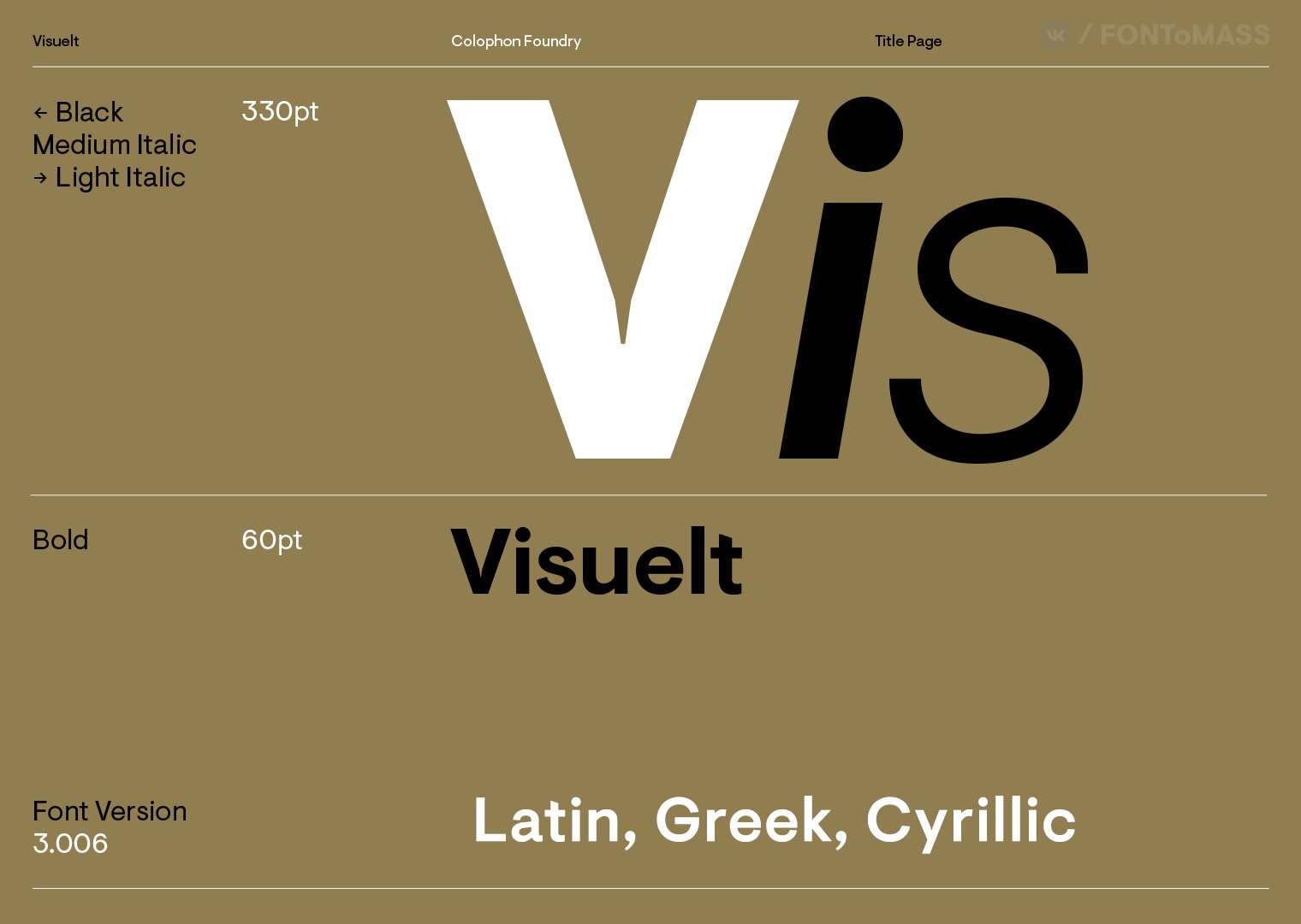
Visuelt Pro Font
Visuelt Pro Font dominates professional design portfolios, creative agency presentations, visual identity systems, architectural firm branding, graphic design studios, art direction projects, photography studios, digital design agencies, visual communication campaigns, creative consultancy materials, design conference posters, and cutting-edge marketing presentations where visual excellence and professional sophistication define industry standards.
This exceptional typeface generates excitement through its masterful integration of visual design principles with professional typography standards that create unparalleled aesthetic sophistication. Visuelt Pro Font distinguishes itself with its perfectly calibrated balance between artistic expression and functional clarity, featuring meticulously crafted letterforms that embody the essence of visual design excellence. The font's contemporary aesthetic reflects current design trends while maintaining timeless professional appeal, incorporating subtle geometric refinements and optical adjustments that enhance both legibility and visual impact. Its systematic approach to typography demonstrates deep understanding of visual hierarchy and communication effectiveness.
The Visuelt Pro Font family encompasses comprehensive professional variations including Thin, Light, Regular, Medium, Semi-Bold, Bold, Extra-Bold, and Black weights, each available in Roman and Italic styles. The collection features extended character sets, advanced OpenType capabilities, and specialized glyphs for professional design applications. Additional features include stylistic alternates, contextual ligatures, proportional and tabular figures, fractions, and superior typography controls that meet the demanding requirements of professional visual communication projects.
Whether you're developing creative agency branding, designing professional portfolios, creating visual identity guidelines, or building sophisticated design systems, Visuelt Pro Font delivers unmatched visual sophistication. Its ability to convey professional expertise, creative excellence, and design authority makes it invaluable for creative professionals who demand typography that reflects their commitment to visual excellence. The font's professional caliber ensures your designs will communicate the highest standards of creative professionalism in today's competitive visual design marketplace.